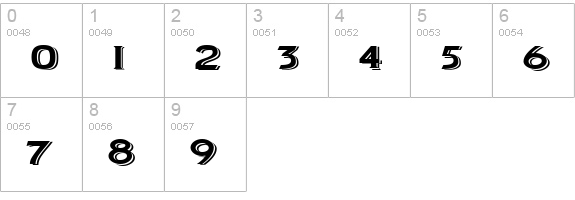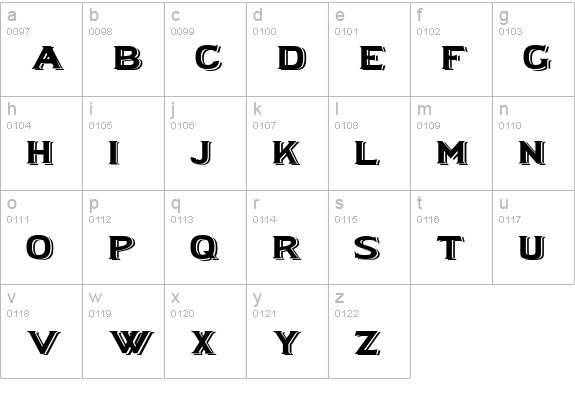
LewishamShadowedWide Font Details
Introducing LewishamShadowedWide font, a versatile and eye-catching typeface that exudes sophistication and elegance. Its unique shadowed design adds depth and dimension to any text, making it perfect for headlines, branding, and more. With its wide and bold letterforms, this font commands attention and leaves a lasting impression. And the best part? LewishamShadowedWide is available for free download at FontsMarket.com. Don't miss out on adding this stunning font to your collection and elevate your designs with its distinct style and visual impact. Whether you're working on print materials, digital projects, or anything in between, LewishamShadowedWide is sure to make a statement and set your work apart. Download it today and unleash the creative possibilities that this font has to offer.